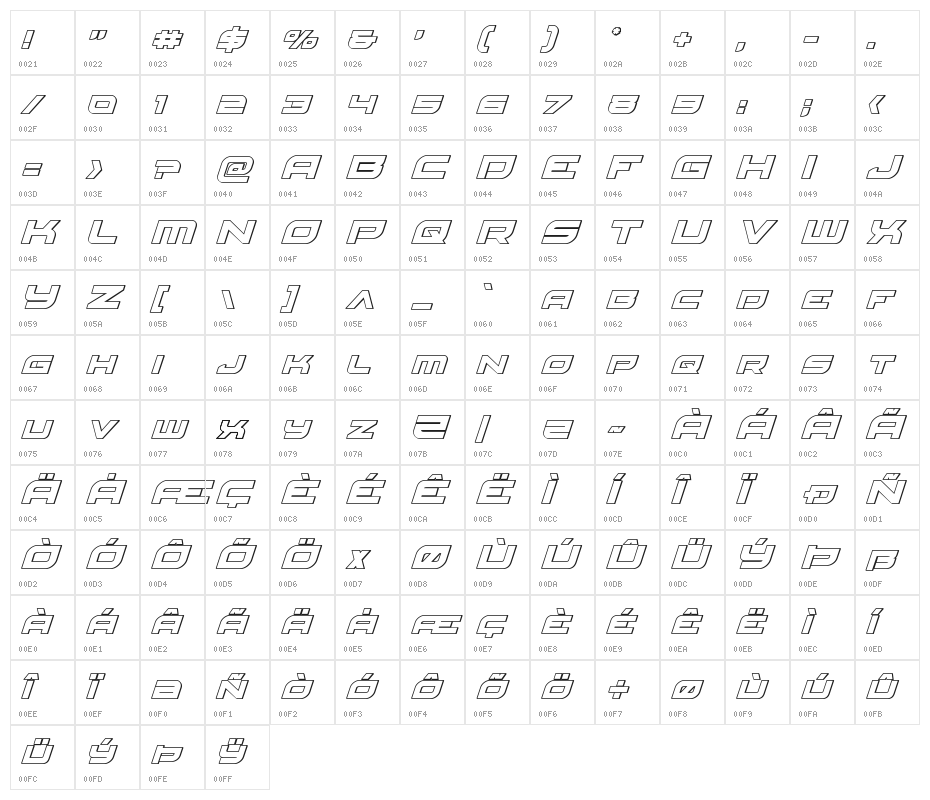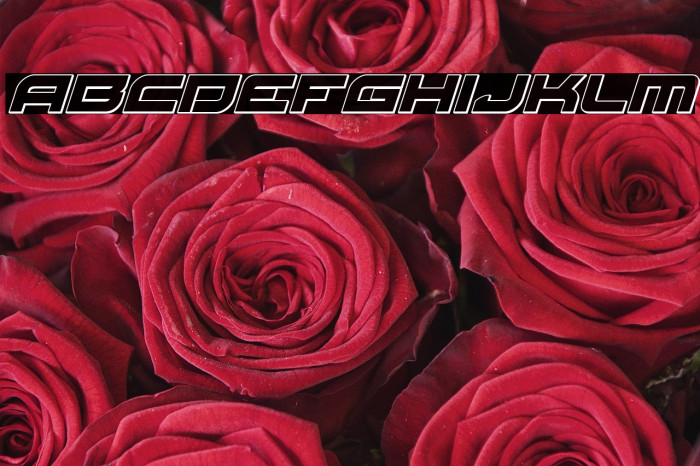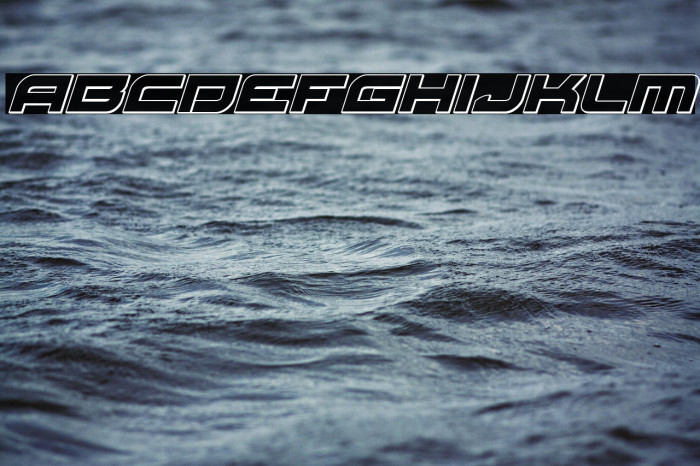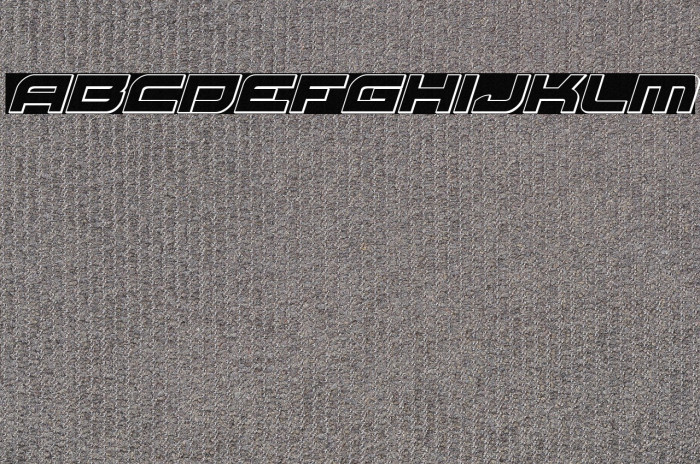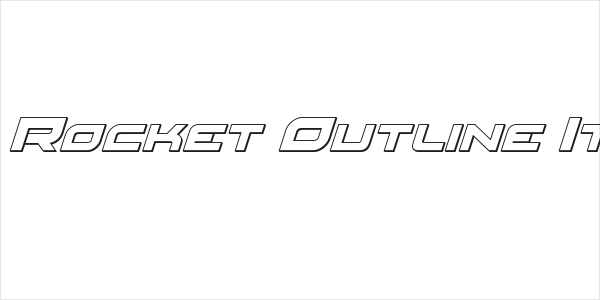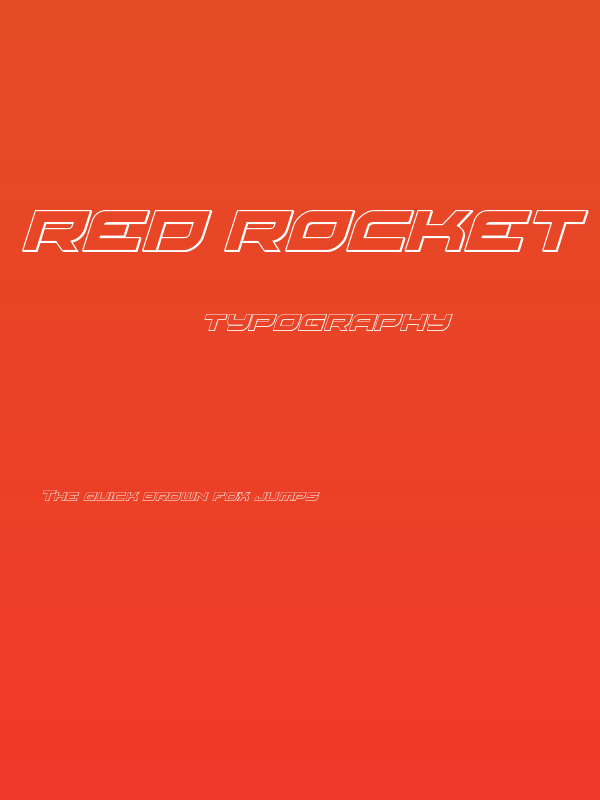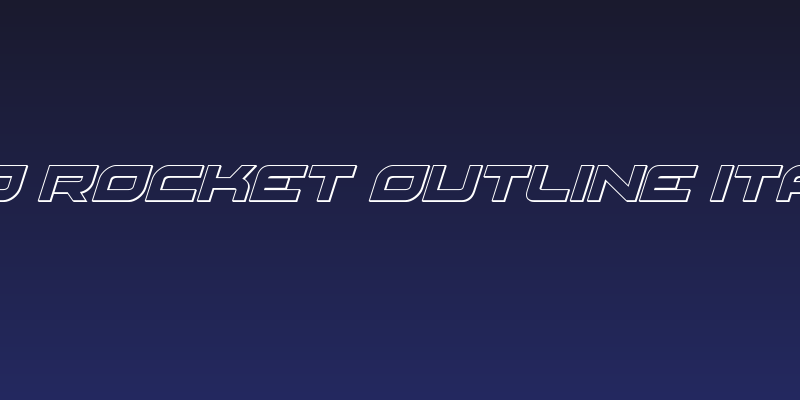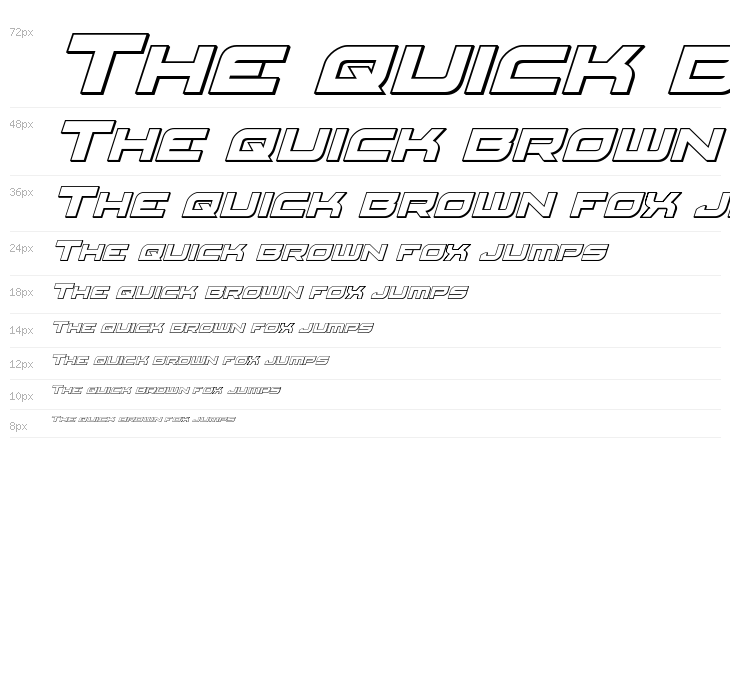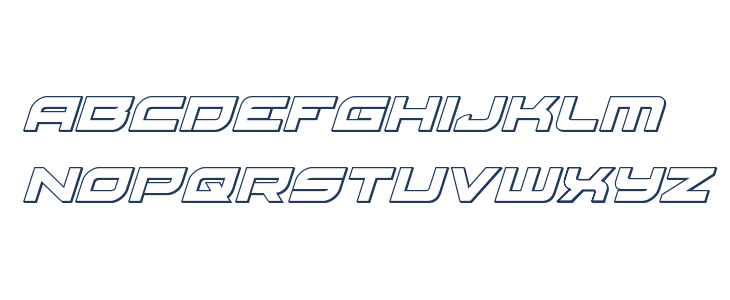
Red Rocket Outline Italic Font
Red Rocket Outline Italic Description
This font features a modern, futuristic outline style with italicized characters. The uppercase and lowercase letters, along with numbers and special characters, are designed with a sleek, aerodynamic appearance. The outlines are consistent, giving the font a cohesive look. The italic slant adds a sense of motion and speed, making it ideal for dynamic and energetic designs. The characters are well-spaced, ensuring readability while maintaining a stylish aesthetic. This font's unique outline and italic features make it stand out, perfect for projects that require a bold and modern touch.
| Proposed Projects | Ideal for branding, sports team logos, automotive designs, and sci-fi themed projects. |